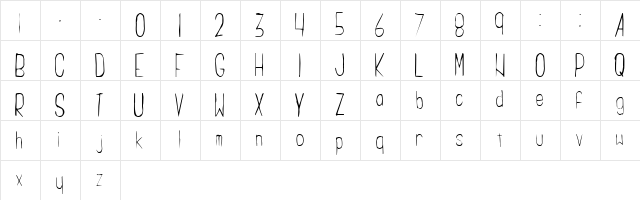
Cachex Thin Font Preview
Cachex Thin
Cachex Thin Font Details
| Style | Thin |
Design Context for Cachex Typeface
Cachex is a composed and adaptable typeface that performs quietly and consistently across a wide range of design contexts. The delicate stroke weight brings airiness and refinement to layouts.